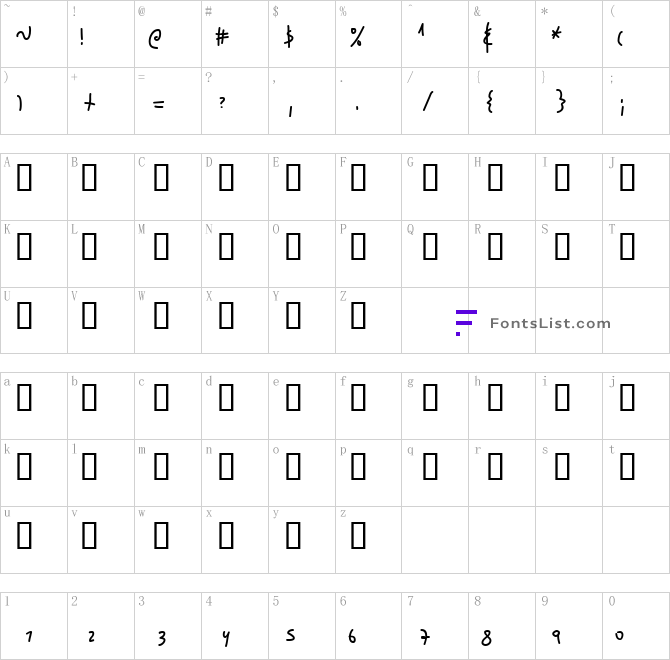
- Font Name:Akitza
Akitza.ttf is a very beautiful artistic font, Akitza.ttf is widely used in the design and printing of various books and pictures,Akitza.ttf has a strong visual impact,Akitza.ttf is a commonly used font in newspapers, magazines and books, and is used in posters, e-commerce Poster design, store design, logo design, font design and other fields.Akitza.